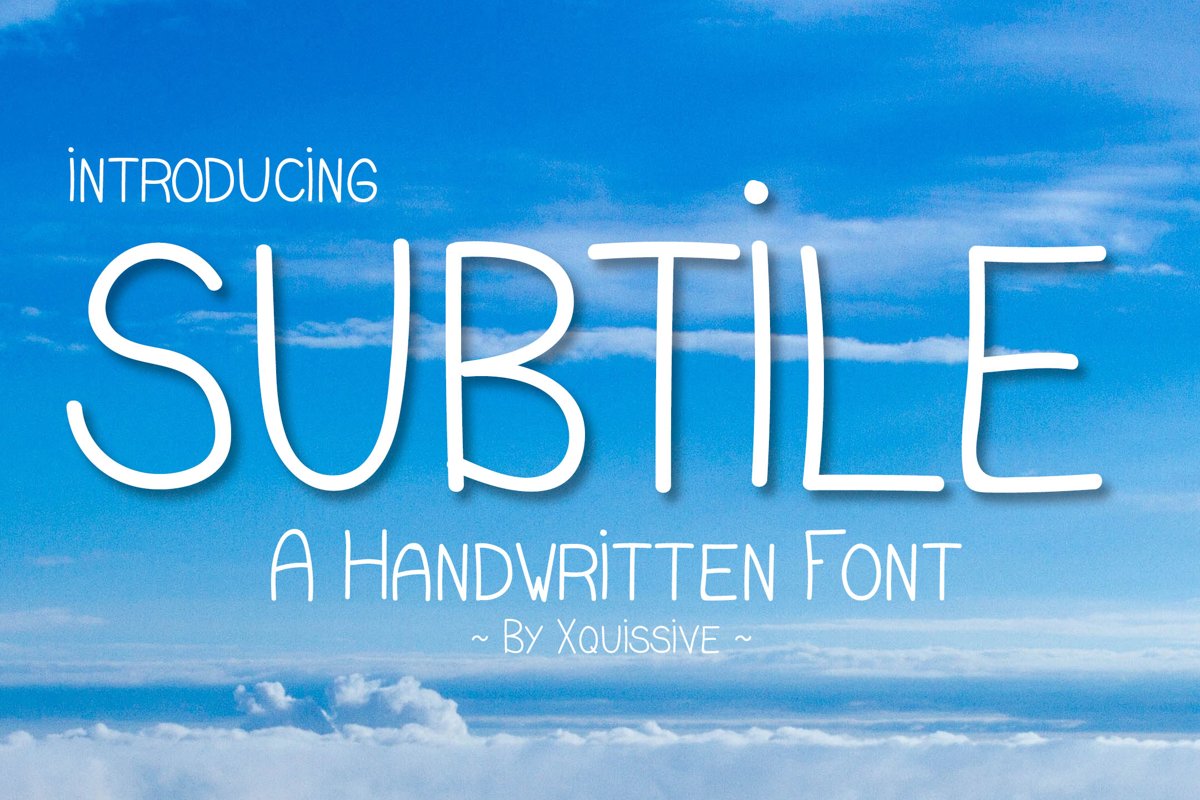
Subtile is a delicate handwritten font created by Richard Eijkenbroek. It has a soft touch and could be perfect for children books, post cards, invitations and so on.
I have added almost 80 special characters so you can use the font now to write international languages.
All special characters are included now. Also included in this update is a further fine-tuned kerning of the individual letters.